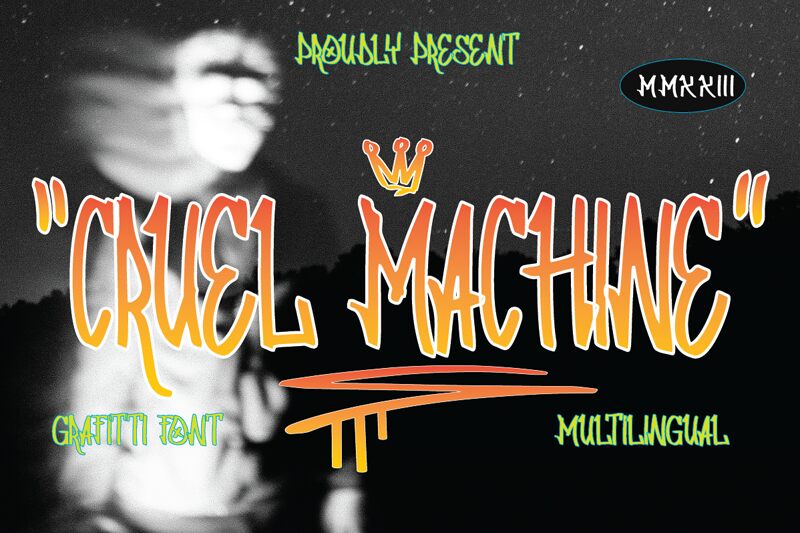
Cruel Machine
Cruel Machine is a graffiti typeface provided to us free of charge by Hello Good Studio. This trendy font features a solid set of uppercase and lowercase letters, numbers and symbols that can be easily added to your texts. It is perfect for creating logos, advertisements and headlines, posters, stickers, labels, flyers, signs, as well as book covers or web designs.
Cruel Machine is an edgy and fun type that is great for adding a street vibe to your projects. You can use it on its own or with other types.